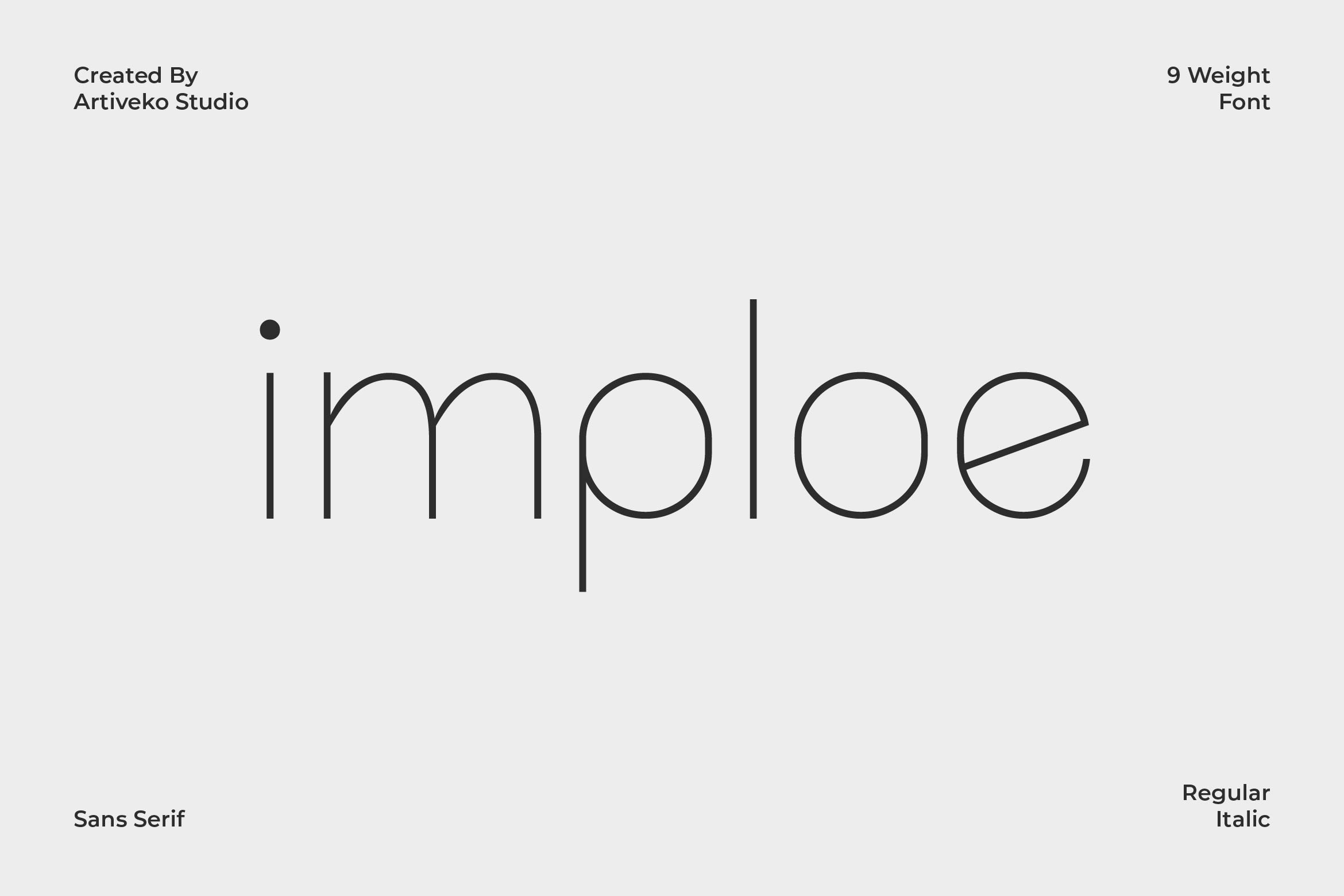
- Imploe Modern Sans Serif Font Family
Imploe is a clean and contemporary sans serif font family designed for flexibility and professional appeal. With its balanced proportions, smooth curves, and geometric precision, Imploe adapts effortlessly to a wide range of creative projects, from branding and editorial layouts to web design, corporate identity, packaging, and social media graphics.
This font family offers multiple weights, allowing you to build cohesive typography systems for both bold headlines and refined body text. Its modern, minimalist design ensures clarity, elegance, and timeless aesthetics across all print and digital platforms.
The font includes uppercase and lowercase letters, numerals, punctuation, multilingual support, and stylistic alternates, providing complete creative freedom for designers.
Bring harmony and sophistication to your work with Imploe — the sans serif font family that combines versatility, modern style, and functional precision.